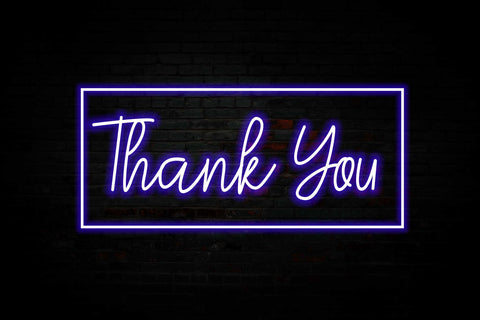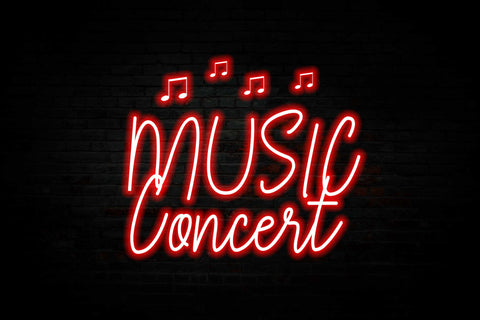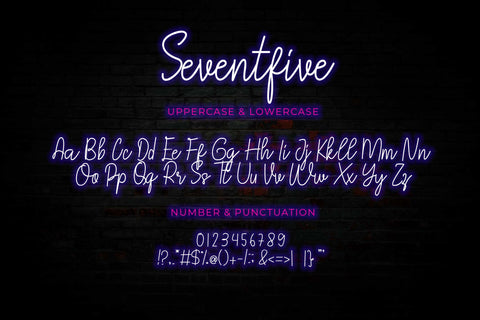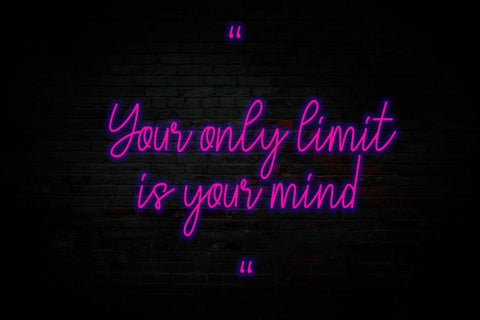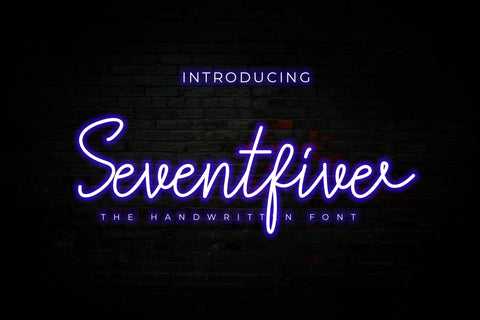
Seventfive
Seventfive is a simple handwritten font. With a neon look the font will be brighter like the moon at night. It is the best choice for creating attractive logos, branding and quotes. Each letter has a unique and beautiful touch, which will bring your designs to life!